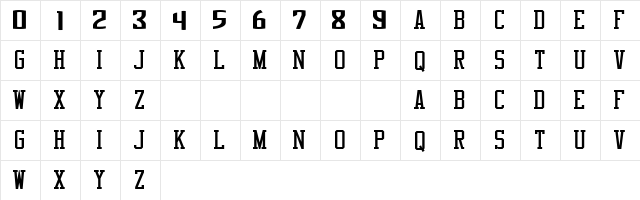
NBA Kings Regular
Design Context for NBA Kings Typeface
NBA Kings takes a measured approach to typography — its balanced proportions and neutral character make it a reliable workhorse for both digital and print work.